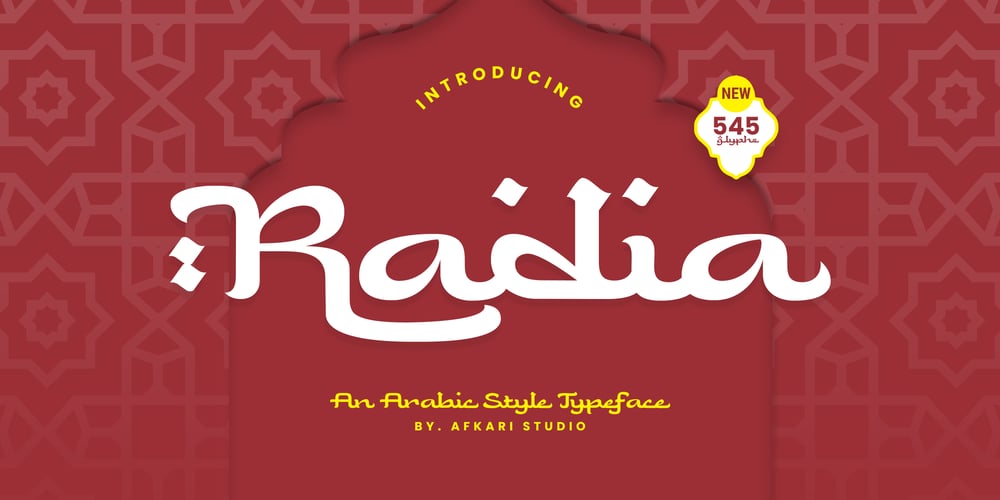
Radia Font Family was designed by Musthafa Kamal Emje and published by Afkari Studio. Radia contains 1 styles and family package options. Radia – An Arabic Style TypefaceIntroducing Radia, a captivating Arabic-style typeface that embodies the essence of Ramadan and Islamic design. Immerse your projects in the rich cultural heritage of Arabic calligraphy with this exquisite font. Radia is meticulously crafted to infuse every text with an authentic Arabic feel, making it an ideal choice for graphic design projects centered around Islamic or Arabic themes.Designed with Latin characters, Radia ensures international readability, allowing your message to transcend linguistic barriers. Whether you’re working on branding, product packaging, quotes, flyers, posters, logotypes, apparel, or even movie titles, Radia effortlessly enhances the visual appeal of your creations.Key Features:- Uppercase, lowercase, numbers, and punctuation- Special alternates and ligatures for added visual flair- Compatible with both PC and Mac platforms- Simple installations for ease of use- Accessibility in popular design software such as Adobe Illustrator, Adobe Photoshop, Adobe InDesign, and Microsoft Word- Fully functional without the need for additional design software- Multilingual support, accommodating characters like ä, ö, ü, Ä, Ö, Ü, ß, ¿, and ¡Radia is more than just a typeface; it’s a versatile tool that adds a touch of sophistication to your creative endeavors. Elevate your design projects with Radia’s unique blend of tradition and modernity, ensuring an engaging and visually stunning result. We hope you enjoy using our font, confident that it will become an invaluable asset in bringing your creative visions to life. Happy designing!